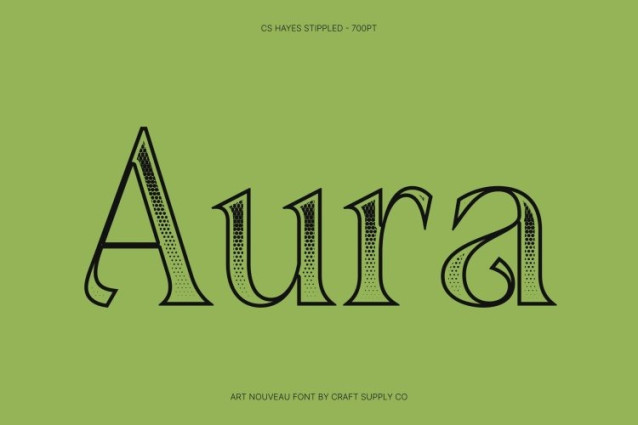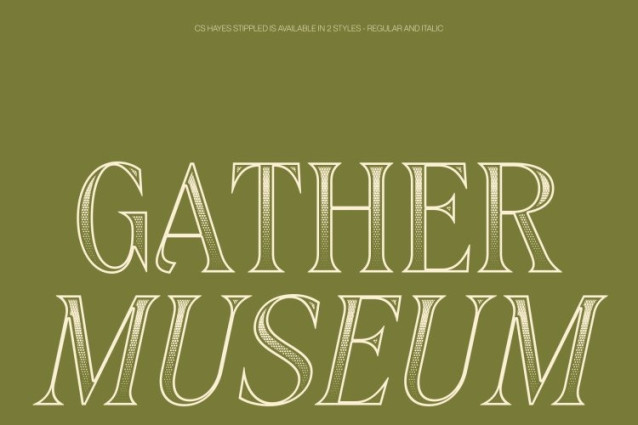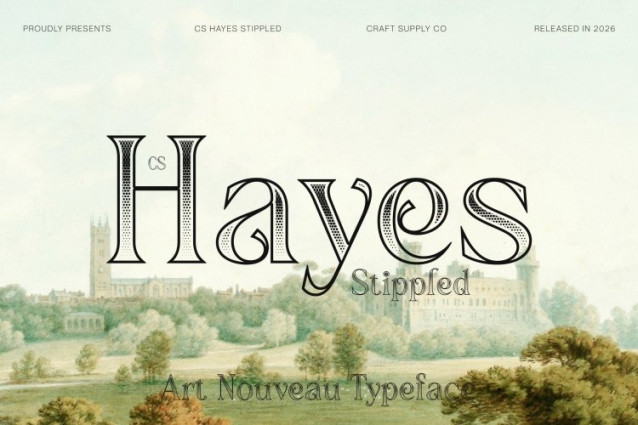
CS Hayes Stippled Font
CS Hayes Stippled Font – This is a refined display serif font that blends modern sophistication with the enchanting charm of Art Nouveau. Its graceful forms and textured stippled finish create a timeless, artistic presence, making it an excellent choice for projects that demand elegance and visual distinction.
Fluid Curves with Intricate Detail
Defined by smooth curves and ornamental accents, the font captures the organic movement and decorative spirit of Art Nouveau. The stippled texture enhances its handcrafted feel, adding depth and character while preserving clarity and balance. This combination gives every letter a refined yet expressive personality.
Balanced Proportions with Nature-Inspired Ornamentation
Carefully crafted proportions ensure readability while maintaining artistic flair. Subtle nature-inspired details woven into the letterforms evoke sophistication, grace, and a sense of luxury perfect for designs that aim to feel polished and refined.
Ideal for Luxury Branding and Elegant Occasions
This font shines in invitations, editorial layouts, posters, and high-end branding. Whether for wedding stationery, premium packaging, or stylish campaigns, this font elevates designs with a harmonious blend of modern elegance and decorative artistry.